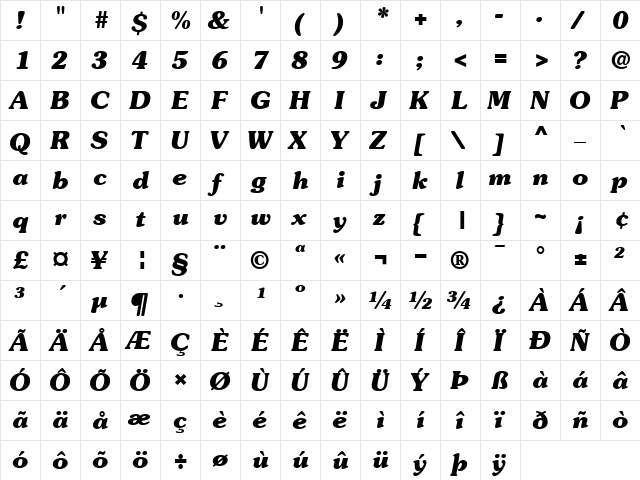
ITCSouvenir BoldItalic Font Preview
Design Context for ITCSouvenir Typeface
ITCSouvenir takes a measured approach to typography — its balanced proportions and neutral character make it a reliable workhorse for both digital and print work. The dynamic lean of this cut emphasises speed and emphasis in any layout. The heavy weight commands attention and anchors typographic hierarchies.
Pro Tip: Try ITCSouvenir for annotation and caption copy alongside an upright companion — the contrast in angle creates a dynamic but ordered typographic system.